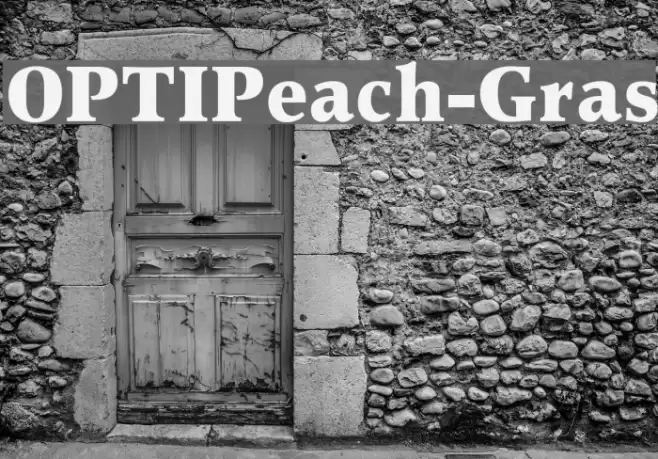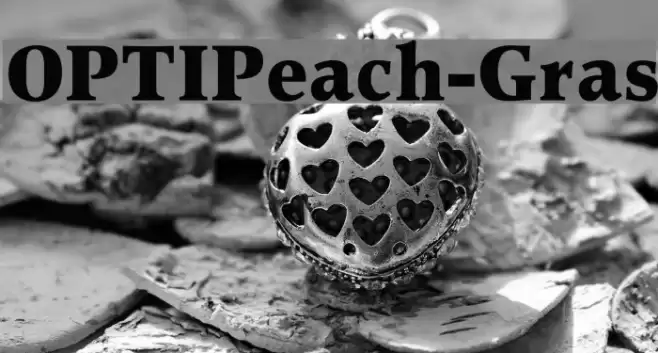
OPTIPeach-Gras Font
OPTIPeach-Gras Description
This font features a bold and robust serif design, characterized by thick strokes and pronounced serifs that give it a strong and authoritative presence. The uppercase letters are particularly striking, with a classic and timeless appeal. The lowercase letters maintain a consistent style, offering a harmonious blend with the uppercase. The numerals are clear and easy to read, making them suitable for various applications. Special characters are well-defined, adding versatility to the font's use. Overall, the font exudes a sense of tradition and reliability, making it ideal for projects that require a touch of elegance and formality.
A bold, classic serif font with strong strokes and pronounced serifs from Uncategorized fonts.
- Proposed Projects: Ideal for book covers, formal invitations, branding materials, and editorial design.
- Contrast: High
- Overall Style: Classic
- Use Case: Headlines, Logos, Editorial design